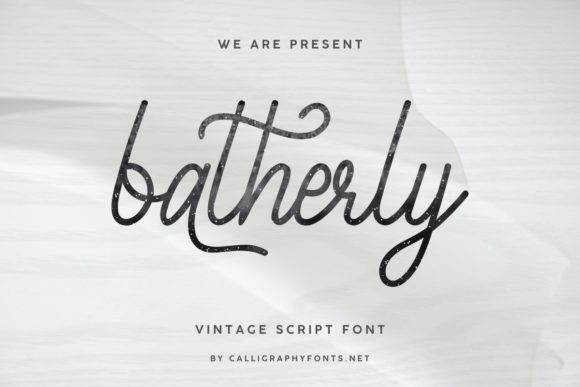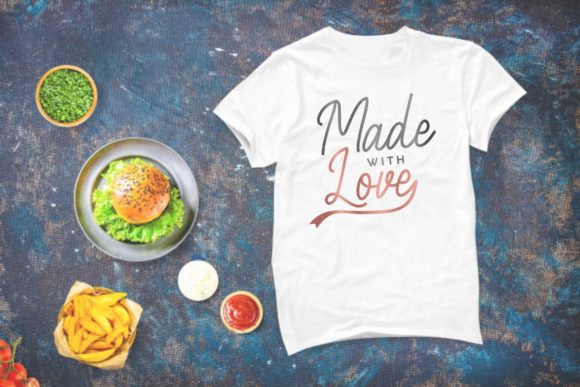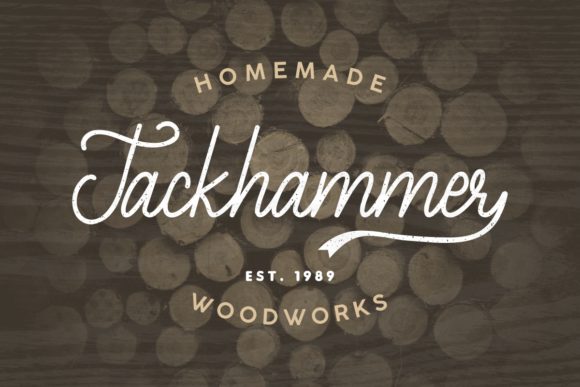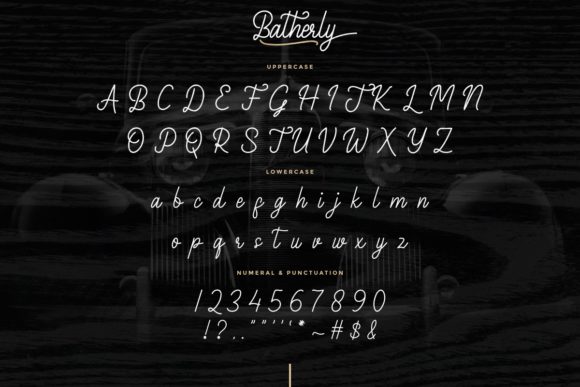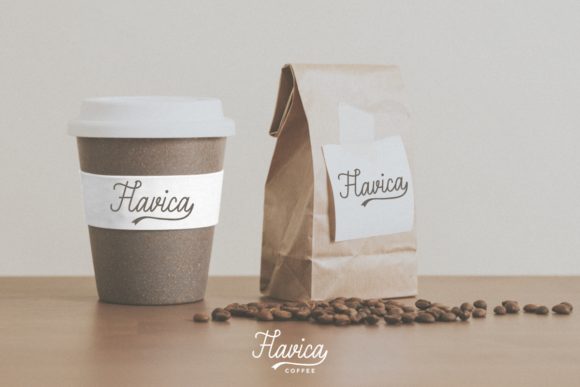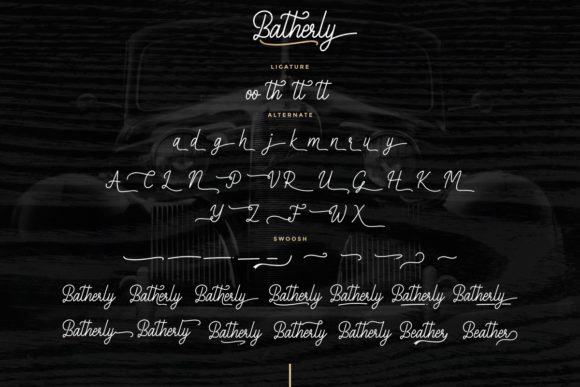
Batherly Font: Elevate Your Designs with a Delicate, Vintage Flair
Are you on the hunt for a font that exudes elegance, sophistication, and a touch of nostalgia? Look no further than Batherly, a delicate, vintage-styled handwritten font that’s sure to capture your heart. With its unique blend of classic charm and modern versatility, Batherly is the perfect addition to any designer’s toolkit.
What Makes Batherly Special?
Batherly boasts a range of features that set it apart from other fonts. Here are just a few reasons why you’ll fall in love with this beautiful font:
• Varying Baseline: Batherly’s irregular baseline adds a touch of whimsy and humanization to your text, making it perfect for creating unique and eye-catching designs.
• Smooth Lines: The font’s smooth, flowing lines create a sense of elegance and sophistication, making it ideal for use in high-end branding, packaging, and editorial design.
• Gorgeous Glyphs: Batherly features a wide range of beautiful glyphs, including intricate letterforms and decorative elements that will add a touch of luxury to your designs.
• Stunning Alternates: With a range of alternate characters to choose from, you can add even more personality and flair to your text, making it truly one-of-a-kind.
The Benefits of Using Batherly
So why choose Batherly for your next design project? Here are just a few benefits of using this versatile font:
• Incredibly Versatile: Batherly’s delicate, vintage style makes it perfect for use in a wide range of design applications, from elegant branding and packaging to beautiful editorial design and craft projects.
• Easy to Read: Despite its ornate, handwritten style, Batherly is surprisingly easy to read, making it perfect for use in body text as well as headlines and titles.
• Unique and Memorable: Batherly’s distinctive style ensures that your designs will stand out from the crowd, making it perfect for designers and crafters who want to create truly memorable and impactful work.
Using Batherly in Your Designs
So how can you use Batherly to elevate your designs? Here are a few ideas to get you started:
• Branding and Packaging: Use Batherly to create elegant, high-end branding and packaging that will help your clients stand out from the competition.
• Editorial Design: Batherly is perfect for use in editorial design, from beautiful magazine layouts to elegant book designs and more.
• Crafting and Scrapbooking: Add a touch of vintage charm to your crafting and scrapbooking projects with Batherly’s delicate, handwritten style.
Tips for Getting the Most Out of Batherly
To get the most out of Batherly, here are a few tips to keep in mind:
• Experiment with Alternates: Don’t be afraid to try out Batherly’s stunning alternate characters to add even more personality and flair to your text.
• Play with Pairings: Batherly pairs beautifully with a range of other fonts – experiment with different combinations to find the perfect match for your design.
• Pay Attention to Kerning: As with any font, pay close attention to kerning to ensure that your text looks its best.
With its delicate, vintage style and incredibly versatile design, Batherly is the perfect addition to any designer’s toolkit. Whether you’re working on a high-end branding project, a beautiful editorial design, or a unique crafting or scrapbooking project, Batherly is sure to help you create something truly special. So why wait? Fall in love with Batherly today and start elevating your designs to new heights!